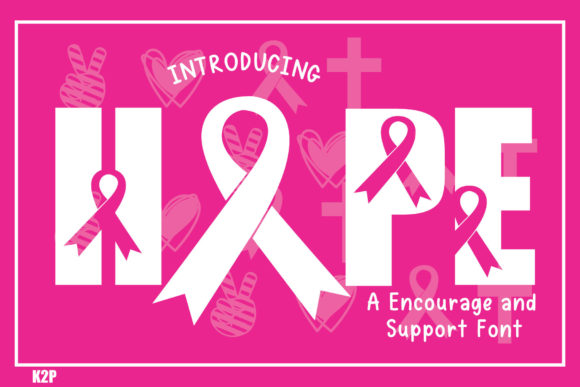
Journey into the realm of visual elegance with Hope Font, a decorative masterpiece that captivates the senses and ignites the imagination. This thick-lettered font, meticulously crafted by KtwoP, exudes a charm like no other, inviting you to explore a world of creativity and expression.
Hope Font is the epitome of innovation, a testament to the boundless possibilities of typography. Each character dances upon the page, a symphony of curves and angles that harmonize to create a visual masterpiece. Its bold strokes and intricate details demand attention, making it the perfect choice for projects that seek to make a lasting impression.
Unleash the power of Hope Font and witness the transformation of your designs. Its versatility knows no bounds, from eye-catching logos and posters to captivating brochures and flyers. Let your imagination soar as you explore the endless possibilities that await.
But Hope Font is not merely a collection of letters; it is a symbol of hope and resilience. Its creation was inspired by the unwavering spirit of those touched by cancer, a testament to their strength and courage in the face of adversity. With each download, you become a part of this inspiring journey, extending a hand of support to those who need it most.
Join the movement, embrace the beauty of Hope Font, and let your designs radiate with hope, inspiration, and unwavering optimism. Together, we can make a difference, one design at a time.